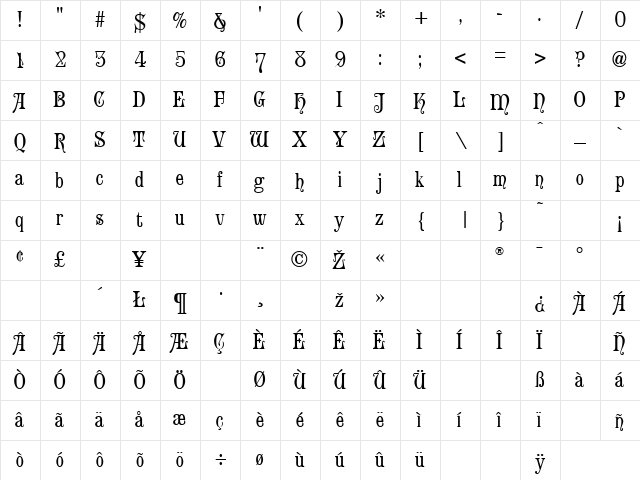
Templar Regular
Foundry: by Dover Publications, Inc
Design Context for Templar
Templar is a composed and adaptable typeface that performs quietly and consistently across a wide range of design contexts.
Who designed the Templar Regular font?